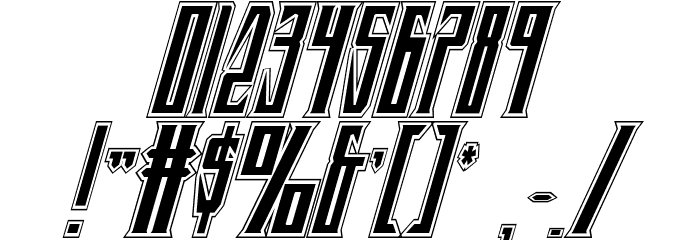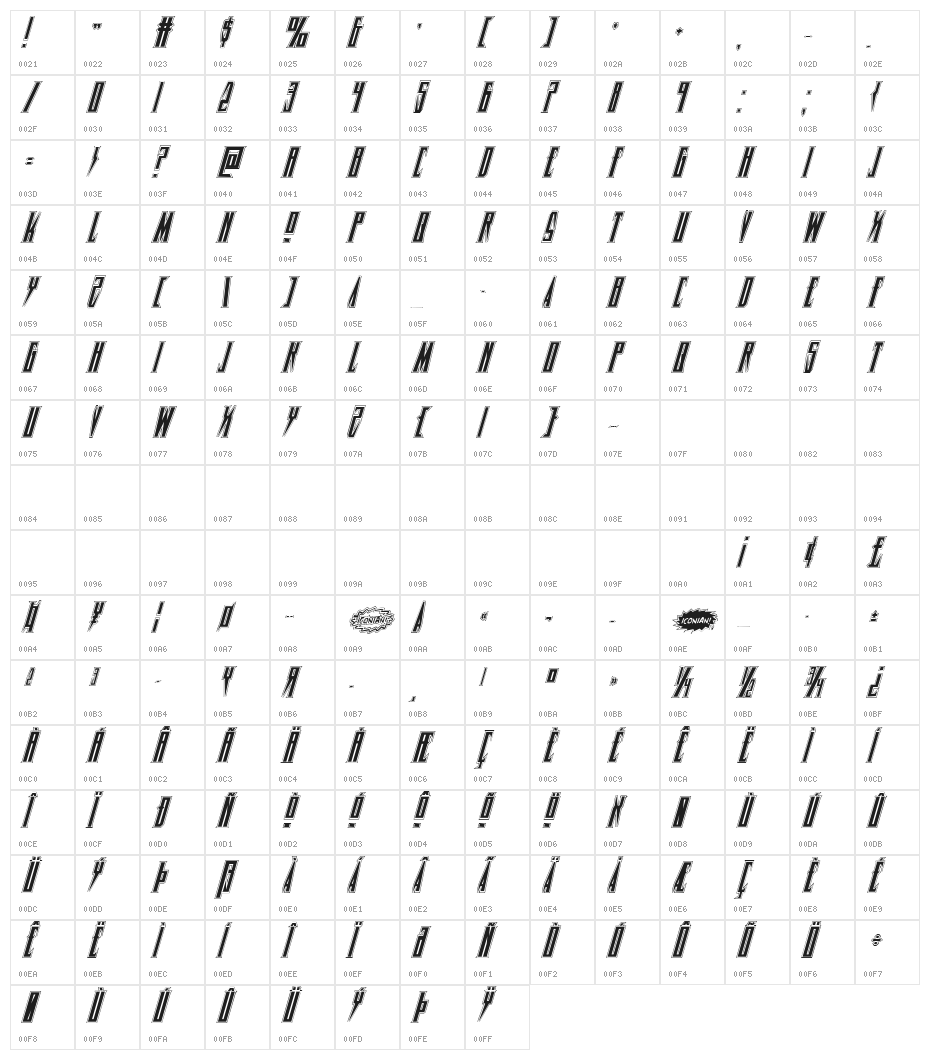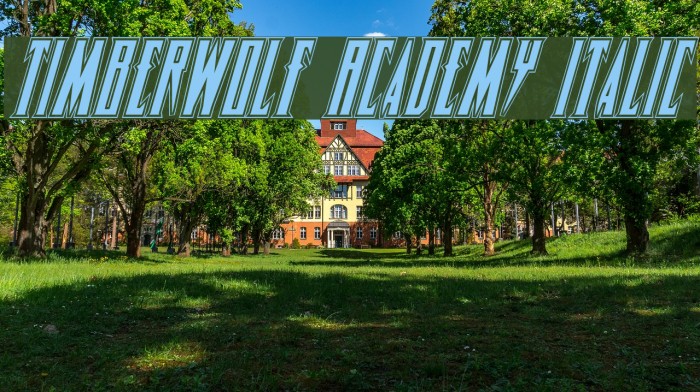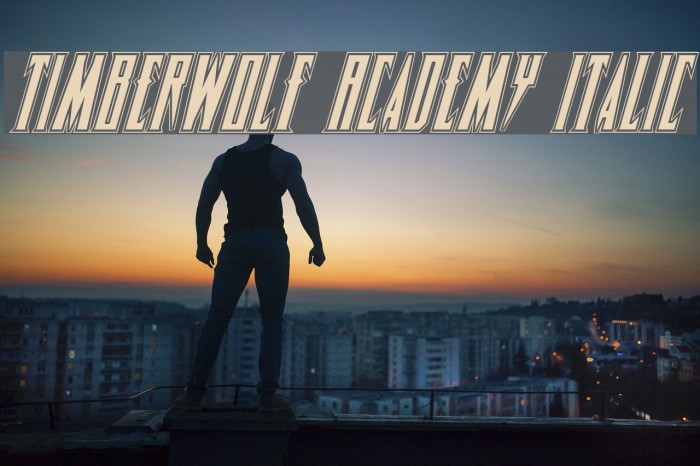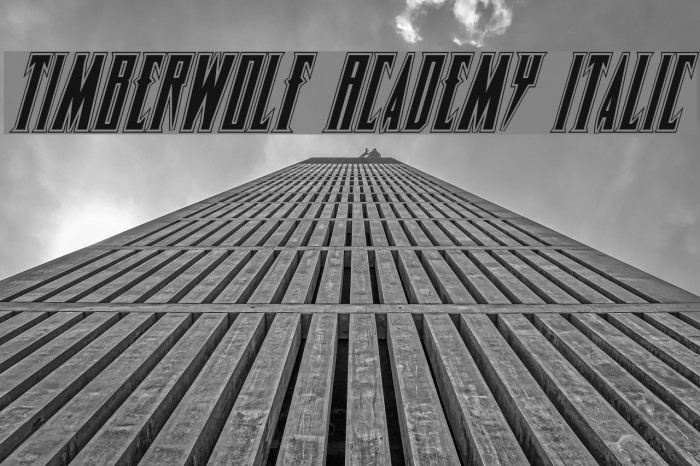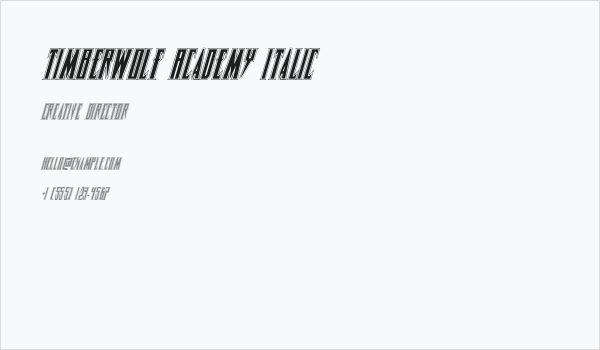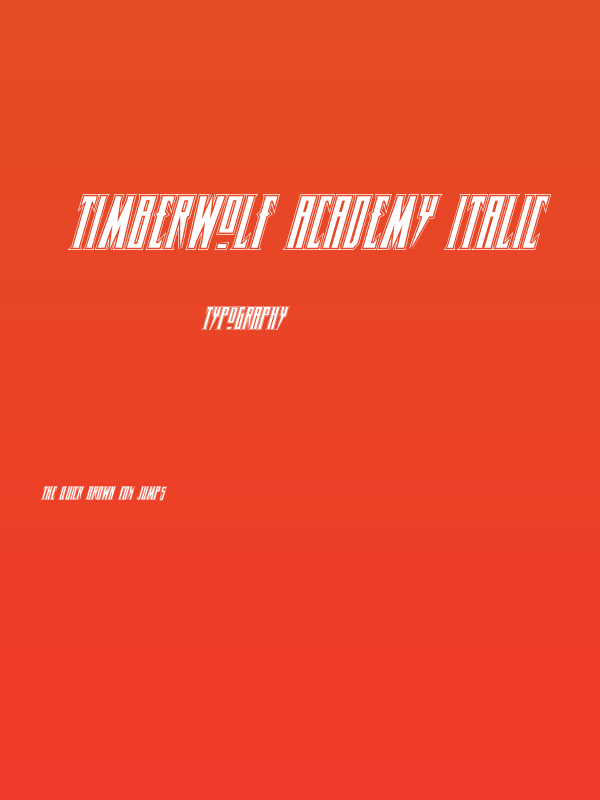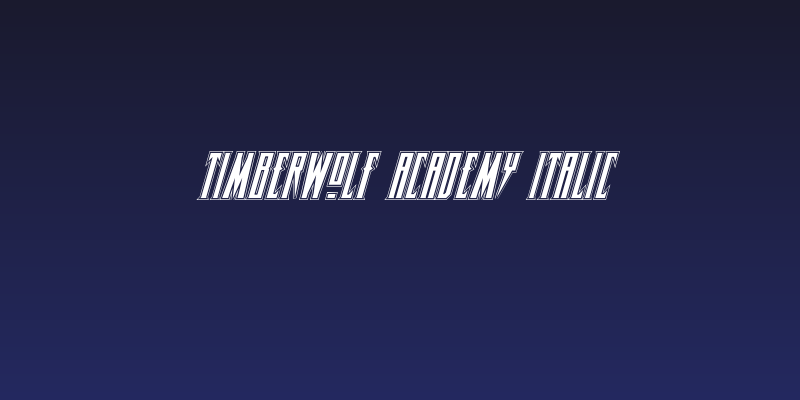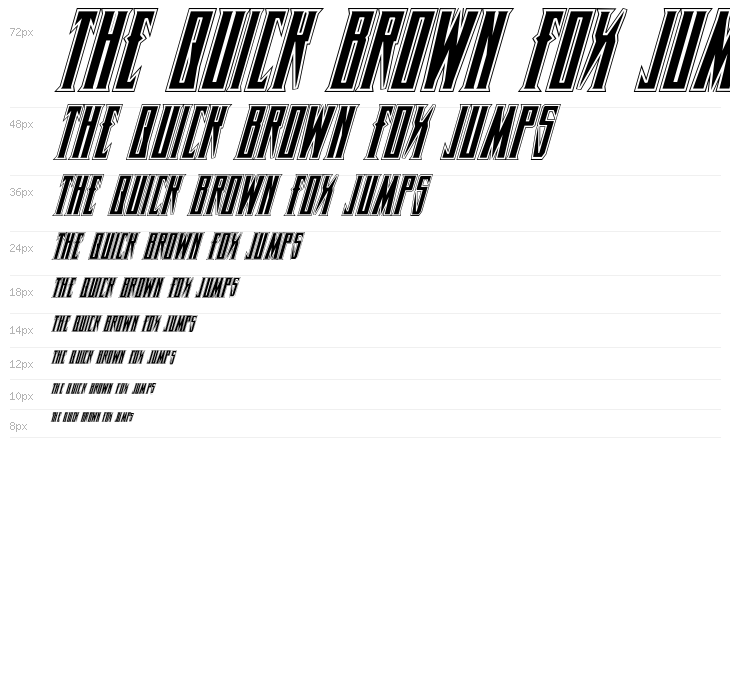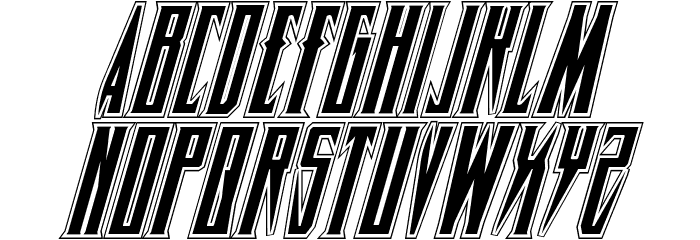
Timberwolf Academy Italic Font
Timberwolf Academy Italic Description
This font features a bold and dynamic design with a strong italic slant, giving it a sense of motion and energy. The characters are outlined with a thick black border, enhancing their visibility and impact. The angular and sharp edges of the letters contribute to a modern and edgy aesthetic, making it suitable for attention-grabbing headlines and titles. The uppercase and lowercase letters maintain a consistent style, while the numerals and special characters complement the overall design. The font's unique style is ideal for projects that require a bold statement.
Proposed ProjectsIdeal for sports branding, dynamic posters, edgy advertisements, and modern logos.